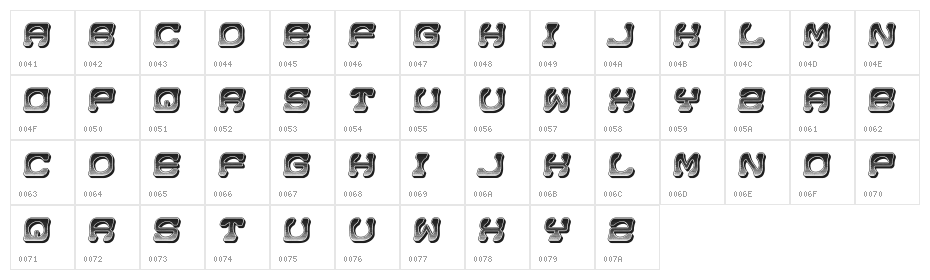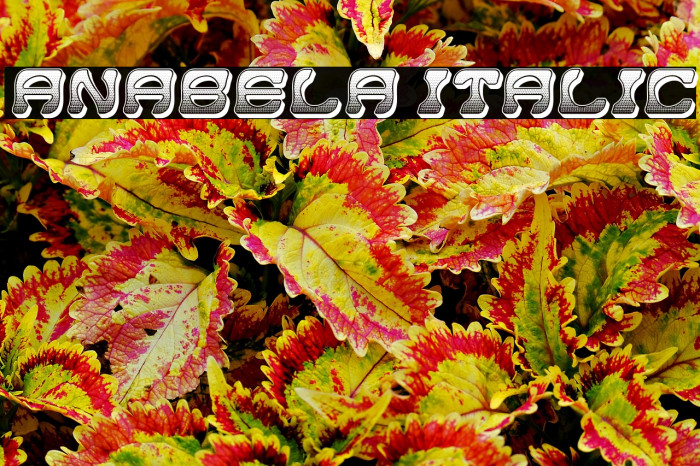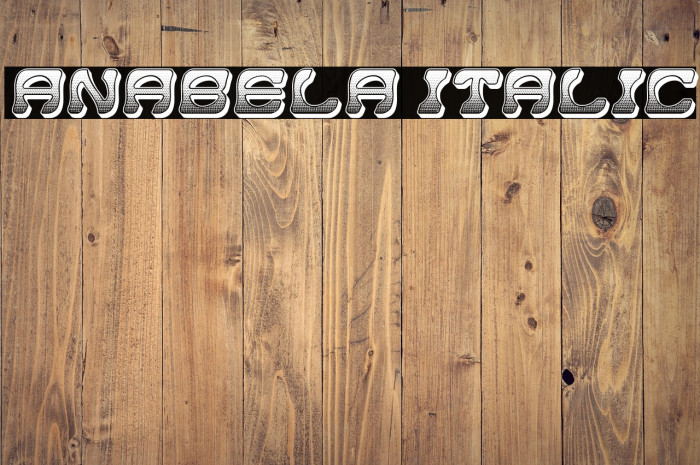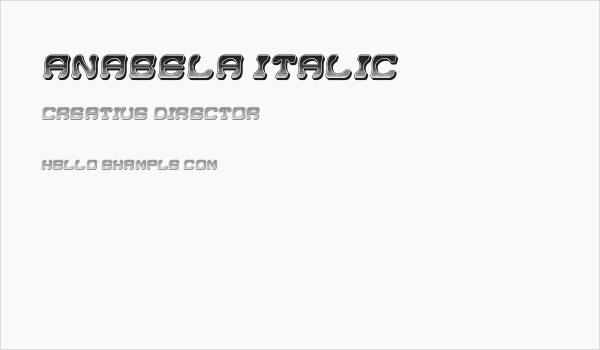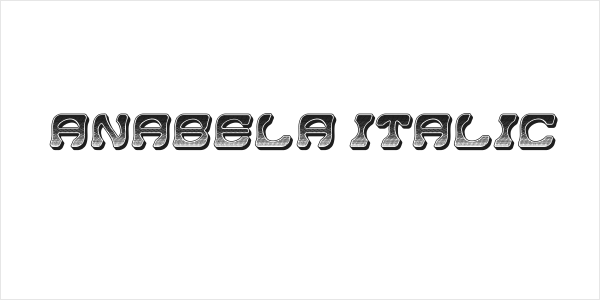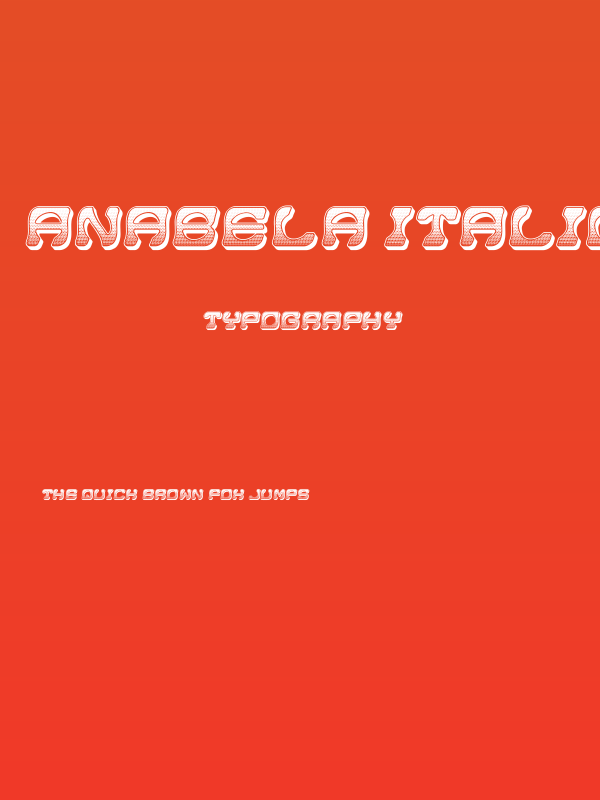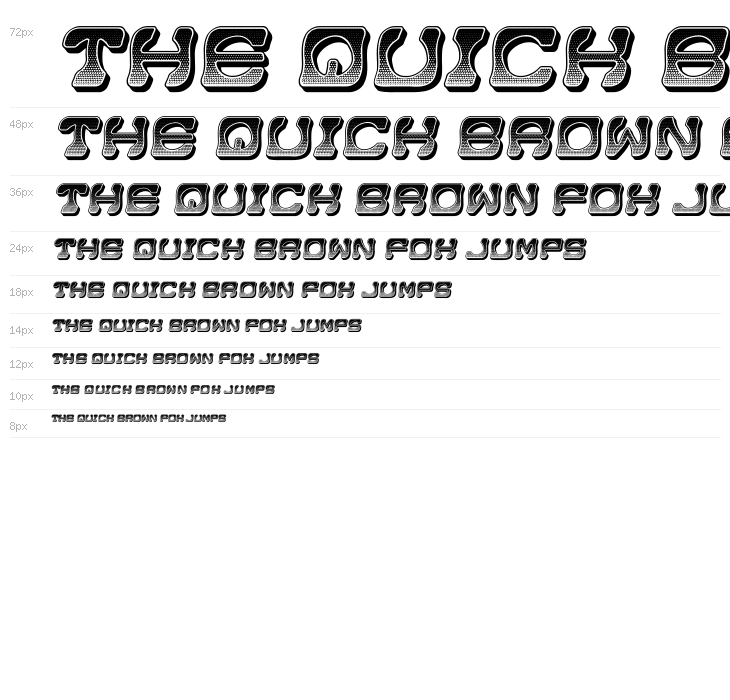
Anabela Italic Font
Anabela Italic Description
This font features a bold, decorative style with a three-dimensional effect. Each character is outlined with a thick border and filled with a pattern that gives a sense of depth and texture. The uppercase letters are prominent and eye-catching, making them suitable for display purposes. The design incorporates a modern twist with a vintage feel, combining elements of both eras. The characters are evenly spaced, ensuring readability while maintaining a unique aesthetic. This font is ideal for projects that require a standout headline or a creative logo design.
| Overall Style | Modern with a vintage twist |
| Proposed Projects | Ideal for posters, logos, headlines, and branding materials that require a bold and creative touch. |